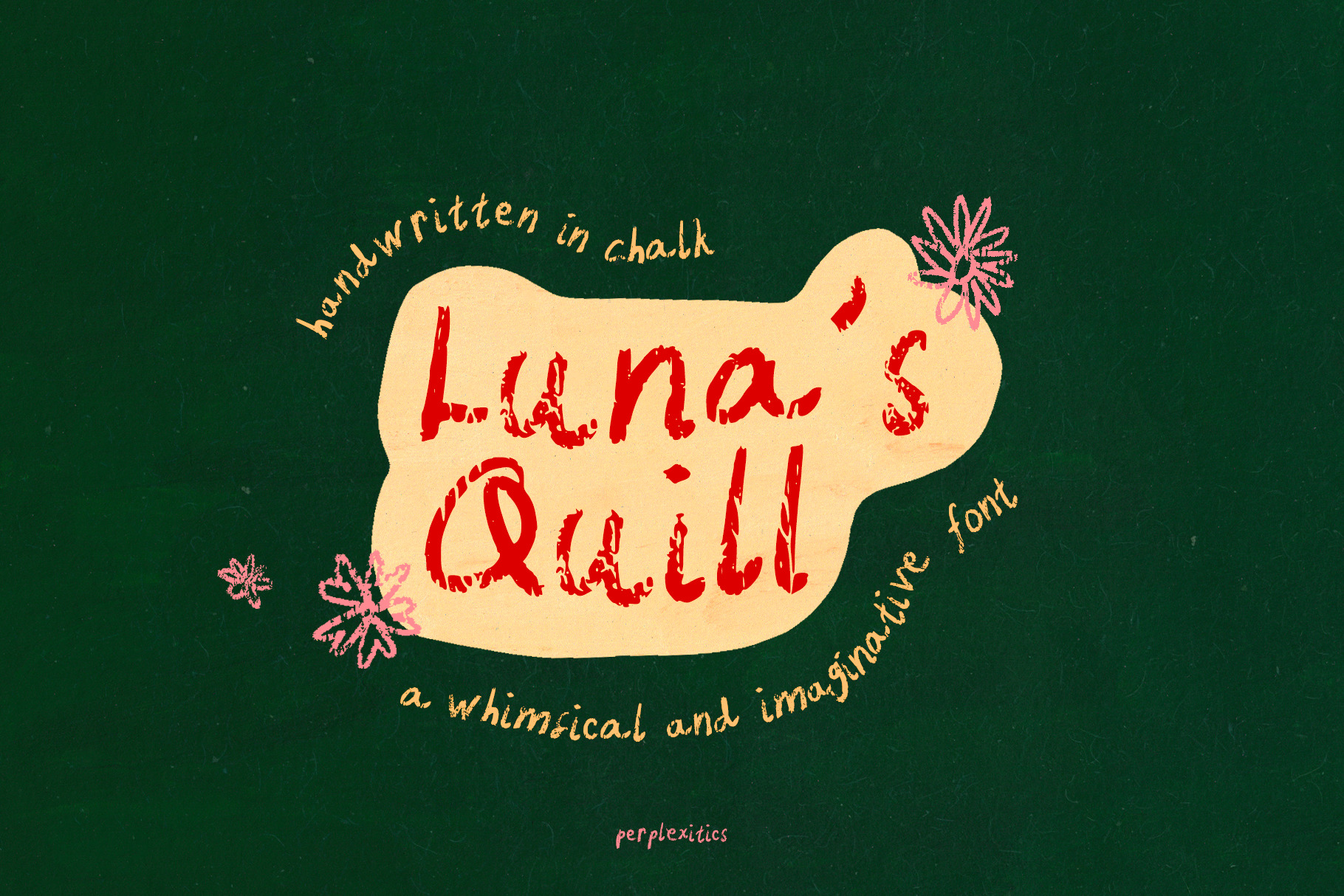
Handwritten Chalk Font Luna's Quill
Luna’s Quill is a handwritten chalkboard font that has whimsical and enchanting vibes that perfectly captures the spirit of how Luna sees the world. Its dreamy qualities make it a perfect choice for projects that require a touch of magic and imagination.